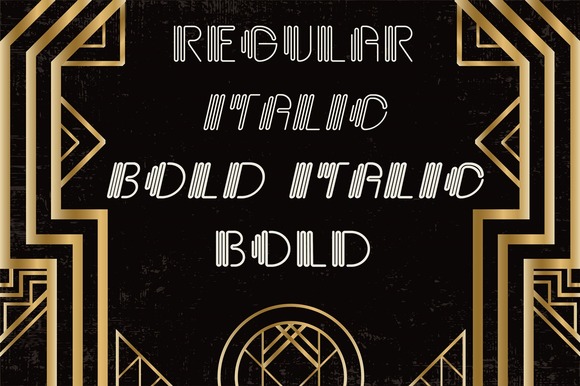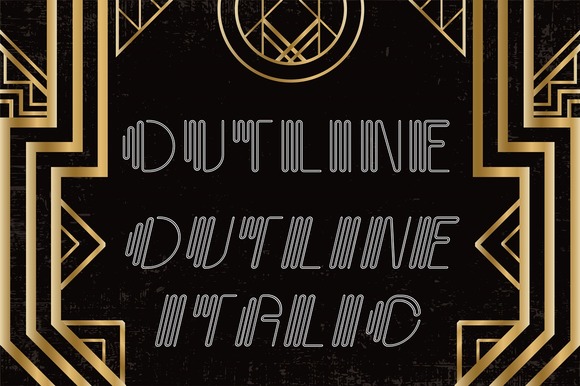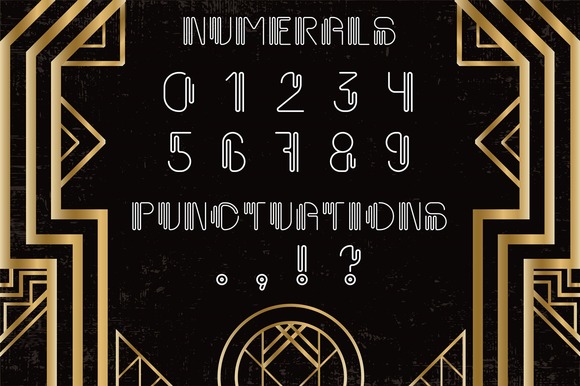
The Quest for the Perfect Font: Discovering Giglio Font
I still remember the frustration of scrolling through font libraries, searching for the perfect typeface for a client’s branding project. The client wanted something modern, yet nostalgic; clean, yet distinctive. It was as if I was searching for a needle in a haystack. That’s when I stumbled upon the Giglio Font Family. Inspired by the styles of the early 20th century, this modern typeface quickly became my go-to for a variety of design projects.
What Makes Giglio Font Special?
The Giglio Font Family is a beautiful blend of strict lines and clean curves, forming the shapes of the alphabet with elegance and simplicity. Its design is a nod to the early 20th-century typography, but with a modern twist that makes it versatile for various applications, from digital media to print.
Here’s what I love about Giglio Font:
- ✨ Modern yet Classic: It strikes a perfect balance between modern simplicity and classic elegance.
- ✅ Versatility: Suitable for a wide range of projects, from branding and advertising to web design and personal crafts.
- 💡 Legibility: The clean lines and curves ensure that the text remains legible, even at smaller sizes.
However, there are a few quirks to consider:
- 🤔 Limited Extras: While the font itself is excellent, it doesn’t come with a wide range of extra glyphs or variations.
- ⚠️ Overuse: Because it’s so elegant, there’s a risk of overusing it in a project, which can make the design feel monotonous.
The Backstory of Giglio Font
The Giglio Font Family was designed with the intention of capturing the essence of early 20th-century typography while making it accessible and functional for modern design needs. The designer aimed to create a typeface that was not only beautiful but also versatile and legible across various mediums.
| Font Name | Giglio Font |
| Author | Anastasiia Macaluso |
| What inspired the creation of Giglio Font? | The early 20th-century typography styles inspired the creation of Giglio Font, blending classic elegance with modern simplicity. |
| Is Giglio Font suitable for body text? | Yes, Giglio Font is legible and can be used for body text, especially in digital media and print. |
Giglio Font has become a staple in my design toolkit, offering the perfect blend of style, versatility, and legibility. Whether you’re working on a branding project, crafting a newsletter, or designing a website, Giglio Font is definitely worth considering.